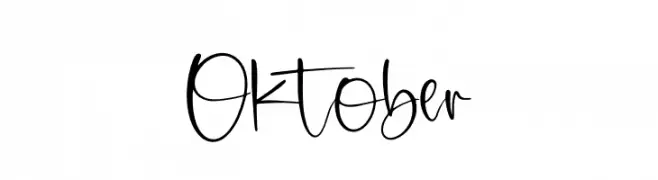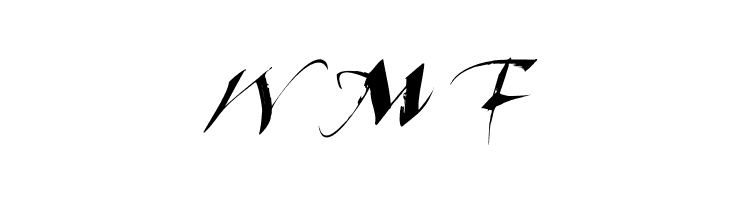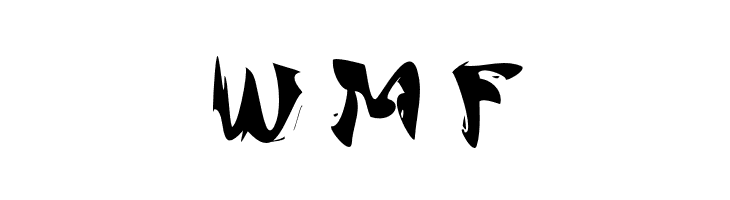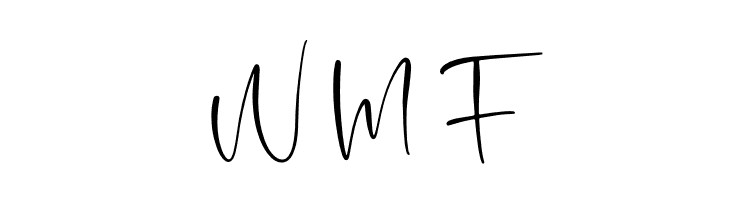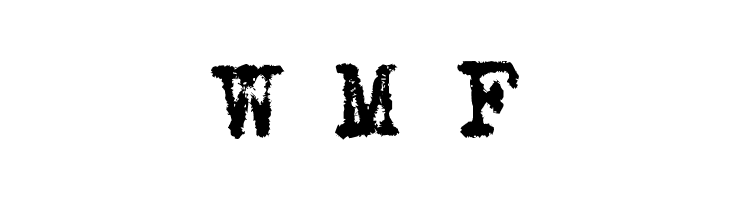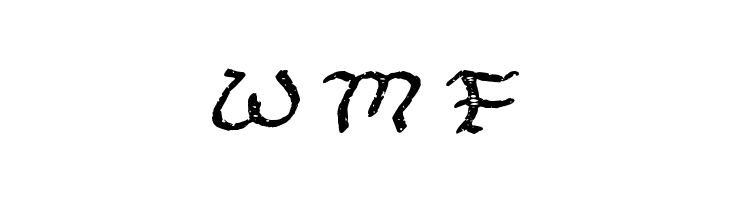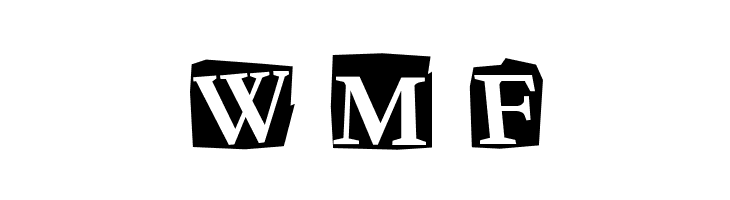
A jagged, eerie font with chaotic, torn-paper-like strokes.
A lively, expressive handwritten font with smooth, flowing strokes and playful loops.
A distressed, hand-drawn font with a crumpled paper effect.
A bold, jagged font with a torn paper effect, ideal for creative projects.
A bold, distressed font with a vintage newspaper aesthetic.
A bold, textured, hand-drawn font with a rugged, organic style.
A playful, high-contrast font with a cut-out, eclectic style.